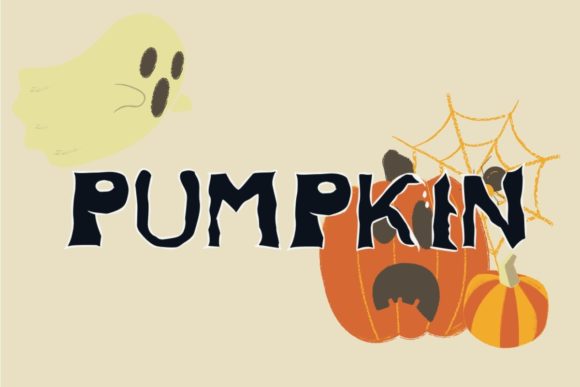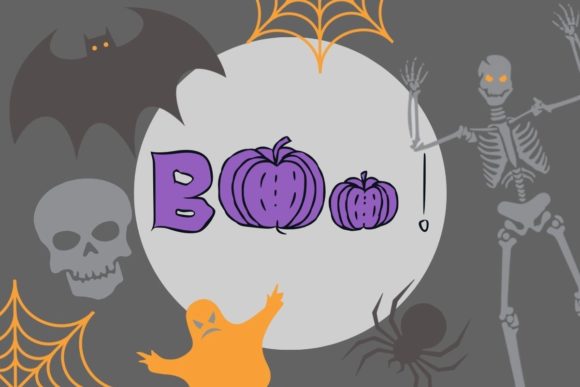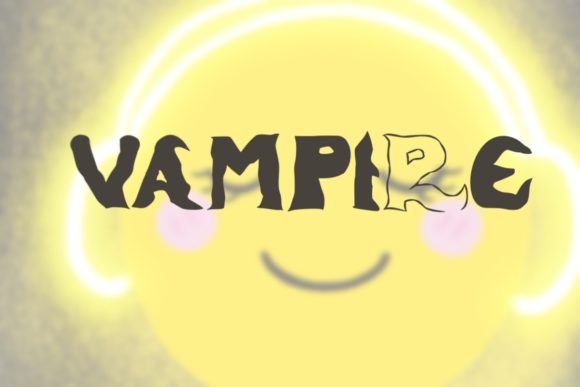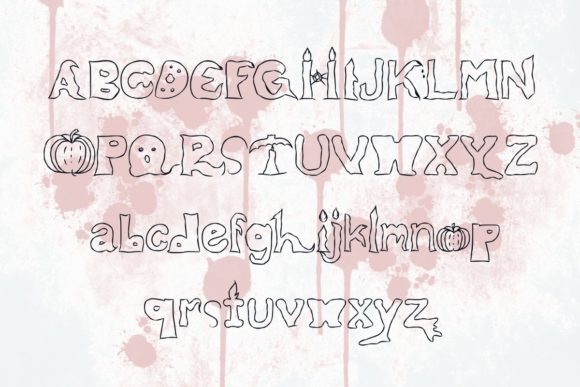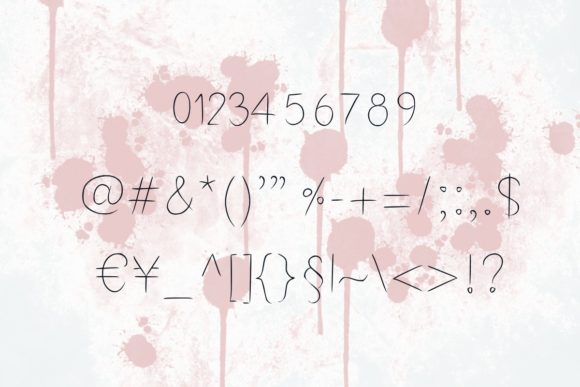
The Perfect Font for a Spooky Celebration
Do you remember the moment when you stumbled upon the perfect font for your Halloween project? The one that made your design come alive with an eerie, yet captivating charm? For many designers, finding the right font is the key to creating a truly unforgettable experience.
That’s where the Halloween Day Font comes in – a thick-lettered and spooky display font that’s perfect for any Halloween-related project or crafty idea. With its unique style, this font is sure to add a touch of magic to your designs, making it a valuable addition to any designer’s toolkit.
Whether you’re working on a spooky-themed poster, a Halloween party invitation, or a craft project, the Halloween Day Font is sure to be a hit. Its versatility and spooky charm make it a must-have for designers who want to create something truly memorable this Halloween season.
Halloween Day Font Key Features
- Font Family: Halloween Day Font is a unique, handwritten font designed specifically for the Halloween season.
- Unique Characteristics: Features spooky and creepy letterforms, perfect for creating eerie and mysterious designs.
Halloween Day Font Review
First off, let’s talk about what works well with this font. ✨ The whimsical feel and spooky vibe are spot on for any Halloween-themed project. The playful, handwritten style is perfect for adding a touch of personality to invitations, posters, or social media graphics.
Here are some specific features that I really like:
- Unique, eye-catching design that’s sure to grab attention
- Excellent for creating a festive atmosphere
- Works well in a variety of contexts, from casual to more formal projects
Now, let’s talk about some limitations. ⚠️ One thing that might be a bit of a challenge is the font’s readability. The handwritten style can make it difficult to read at smaller sizes or in certain contexts. Additionally, the font may not be as versatile for non-Halloween-themed projects.
Overall, I think the Halloween Day Font is a great choice for anyone looking to add some spooky flair to their designs. While it may have some limitations, its unique style and playful feel make it a standout option for Halloween-themed projects.
Tips for Getting the Most Out of the Halloween Day Font
Use the font in combination with other spooky graphics and effects to create a haunted atmosphere.
Experiment with different font sizes and colors to create a sense of depth and dimension.
Use the font to create a sense of mystery and intrigue, such as in a horror-themed movie title or a creepy poem.
Halloween party invitations
Spooky-themed social media posts
Horror movie titles or posters
Creepy poetry or short stories